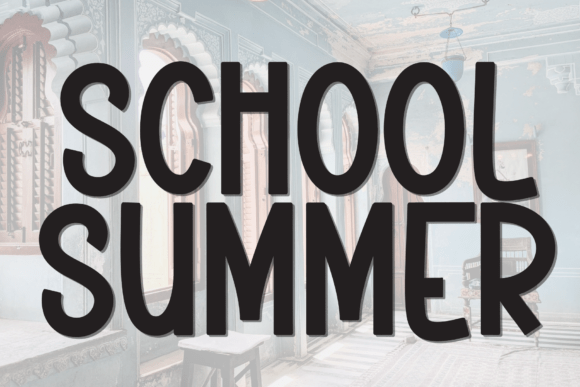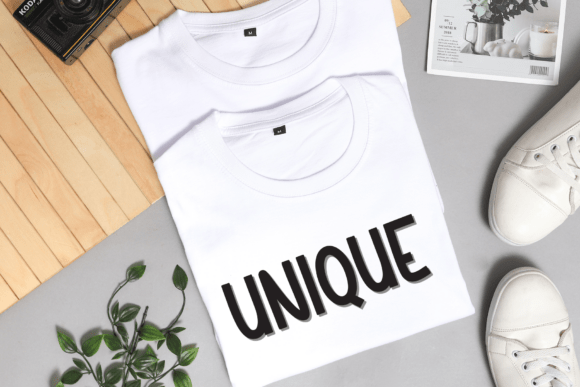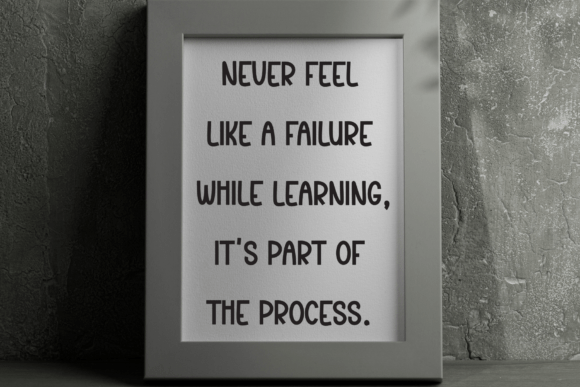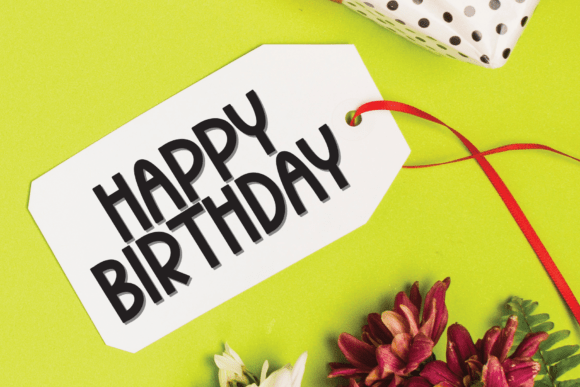
School Summer Font
About the School Summer Font
Introducing the School Summer Font, a beautifully crafted typeface designed to elevate your creative projects. School Summer is a tall, quirky, and fun handwritten font that radiates youthful energy and simplicity. Its bold, rounded letters are perfect for school projects, educational designs, children’s books, playful branding, and summer-themed graphics.
School Summer Font Usage Examples
School Summer Font Example